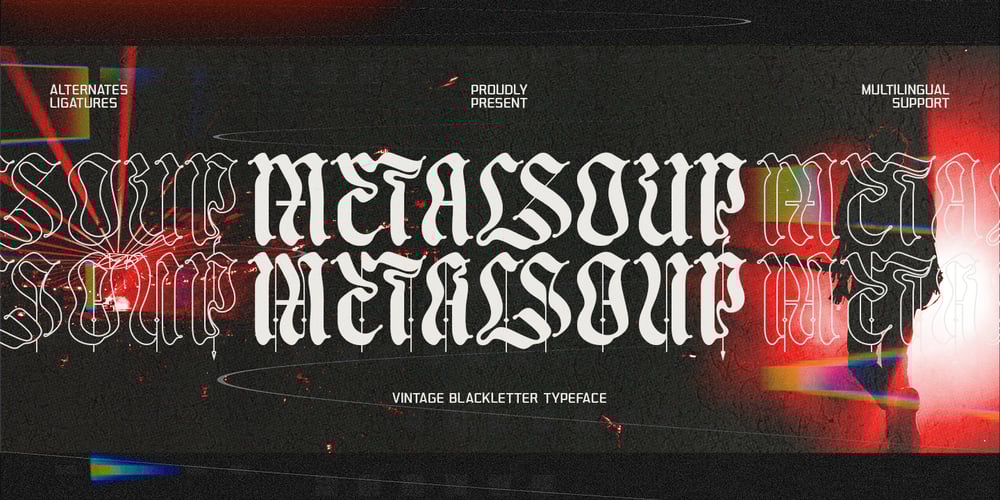
Metalsoup Font Family was designed by Alit Suarnegara and published by Alit Design. Metalsoup contains 2 styles and family package options. “Metal Soup” is a captivating blackletter font that exudes a unique blend of boldness and a dynamic, distressed aesthetic. With its robust design, this font is perfect for making a striking statement in your design projects. “Metal Soup” boasts 720 characters and offers comprehensive multilingual support, making it versatile and adaptable for a wide range of creative applications.